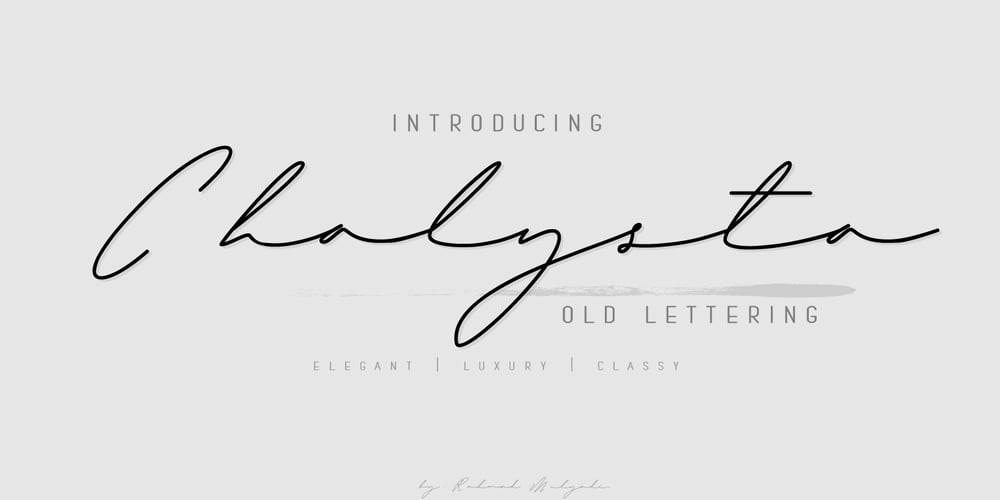
Chalysta Font Family was designed by Rahmad Mulyadi and published by BaronWNM. Chalysta contains 1 styles and family package options. Introduces an old lettering style font. looks elegant, luxurious and classy. Chalysta is a form of handwriting with a sideways drag, which looks like it was handwritten in old scripts.Each lowercase has an alternate pull before the letter to make it look more natural.Very suitable for use in branding, wedding invitations, quotes, cards, etc.